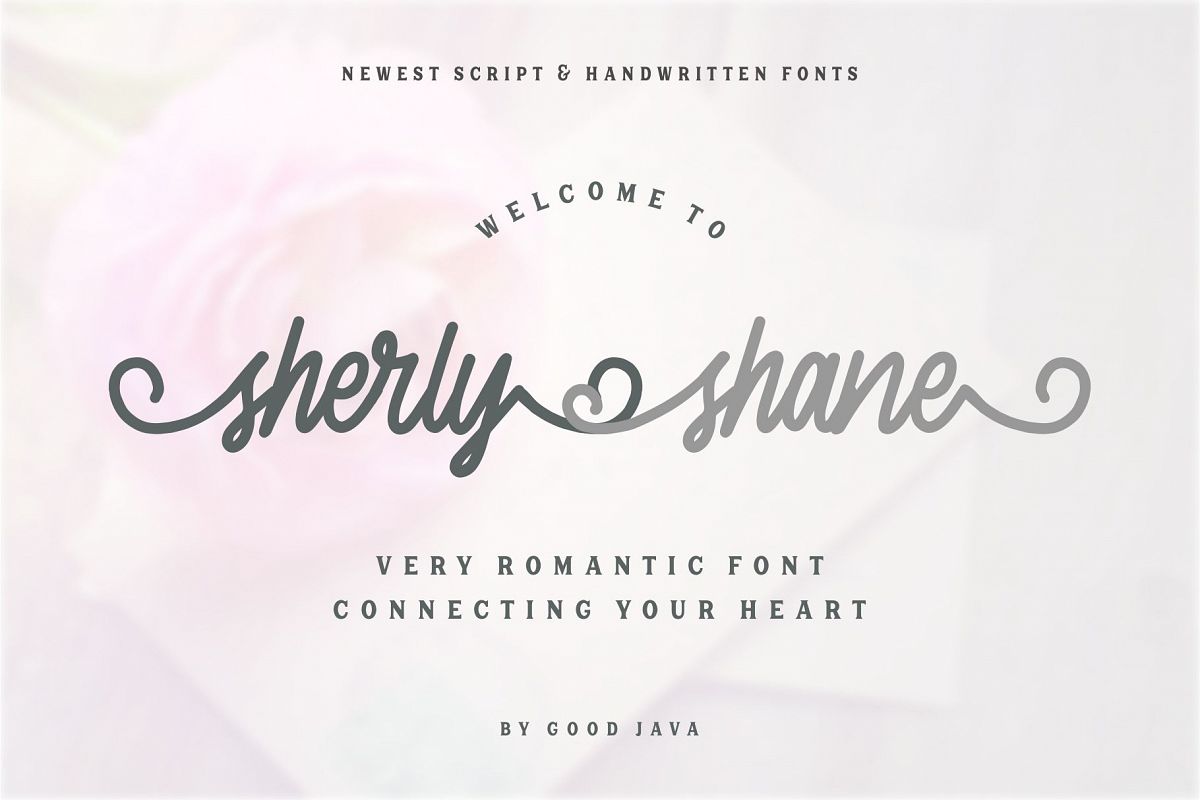
Sherly Shane
Sherly Shane is romantic script font make with many swashes in start and ending character.
Make a beautiful style heart with swash. This font includes full set of swash heart lowercase letters, numerals, and punctuation. Also it includes: - short lowercase beginning and ending swashes - lowercase ending heart swashes, which serve to connect two words or letters. This is so perfect for invitations, monograms, wedding, fashion, branding, label. or logotype.What's included?
• EXTRAS BEAUTIFULLY SWASH (lowercase start and ending swash)